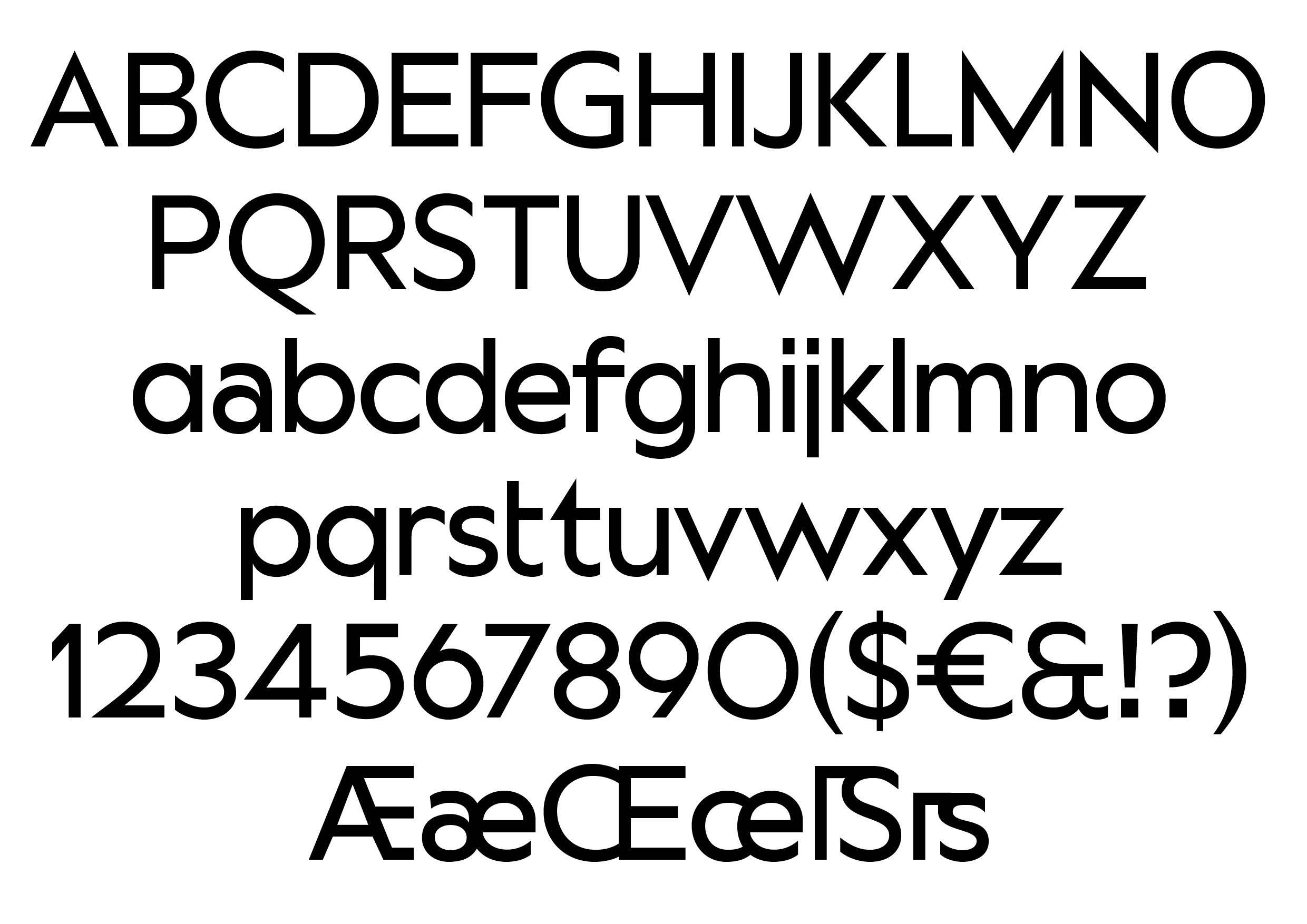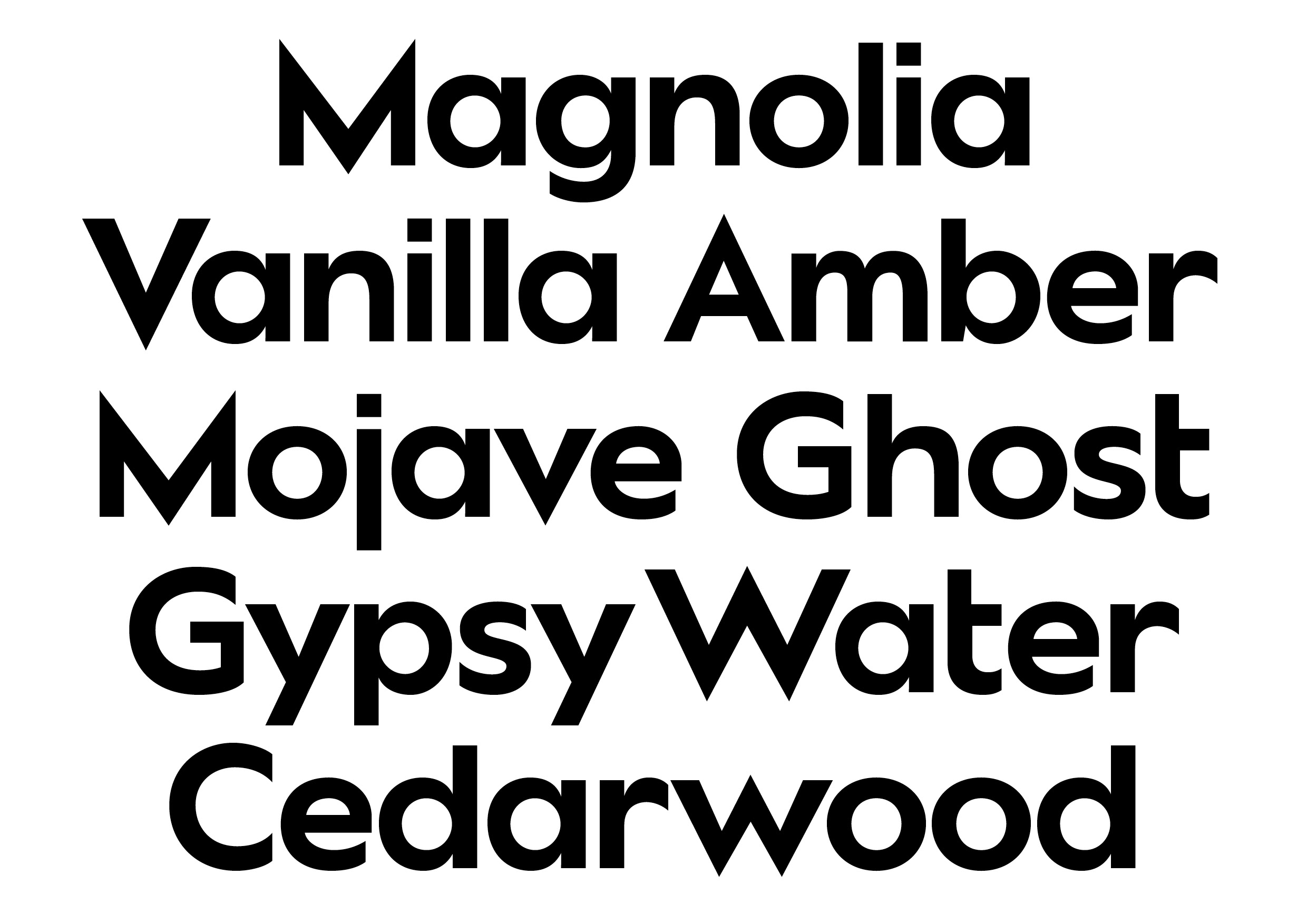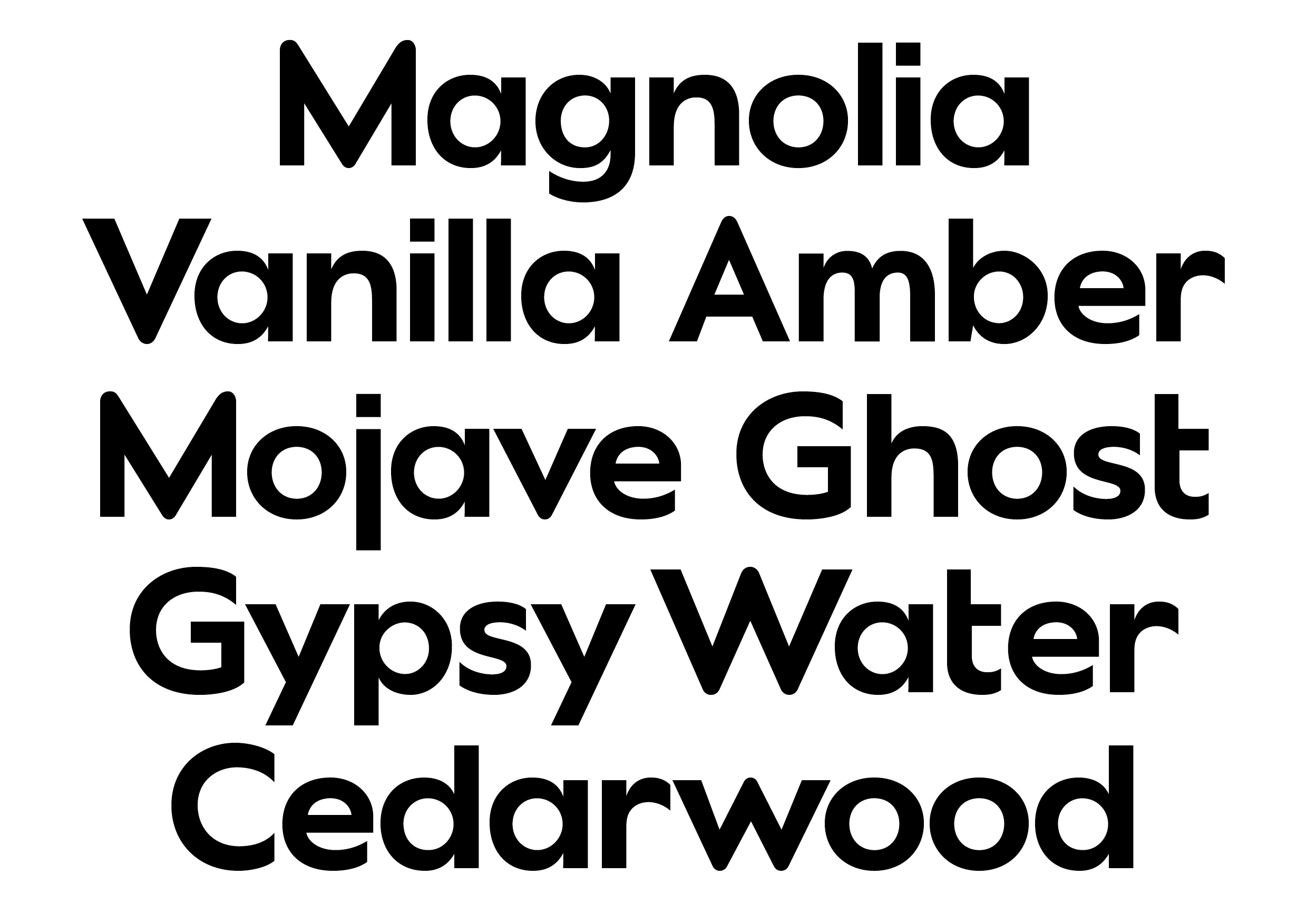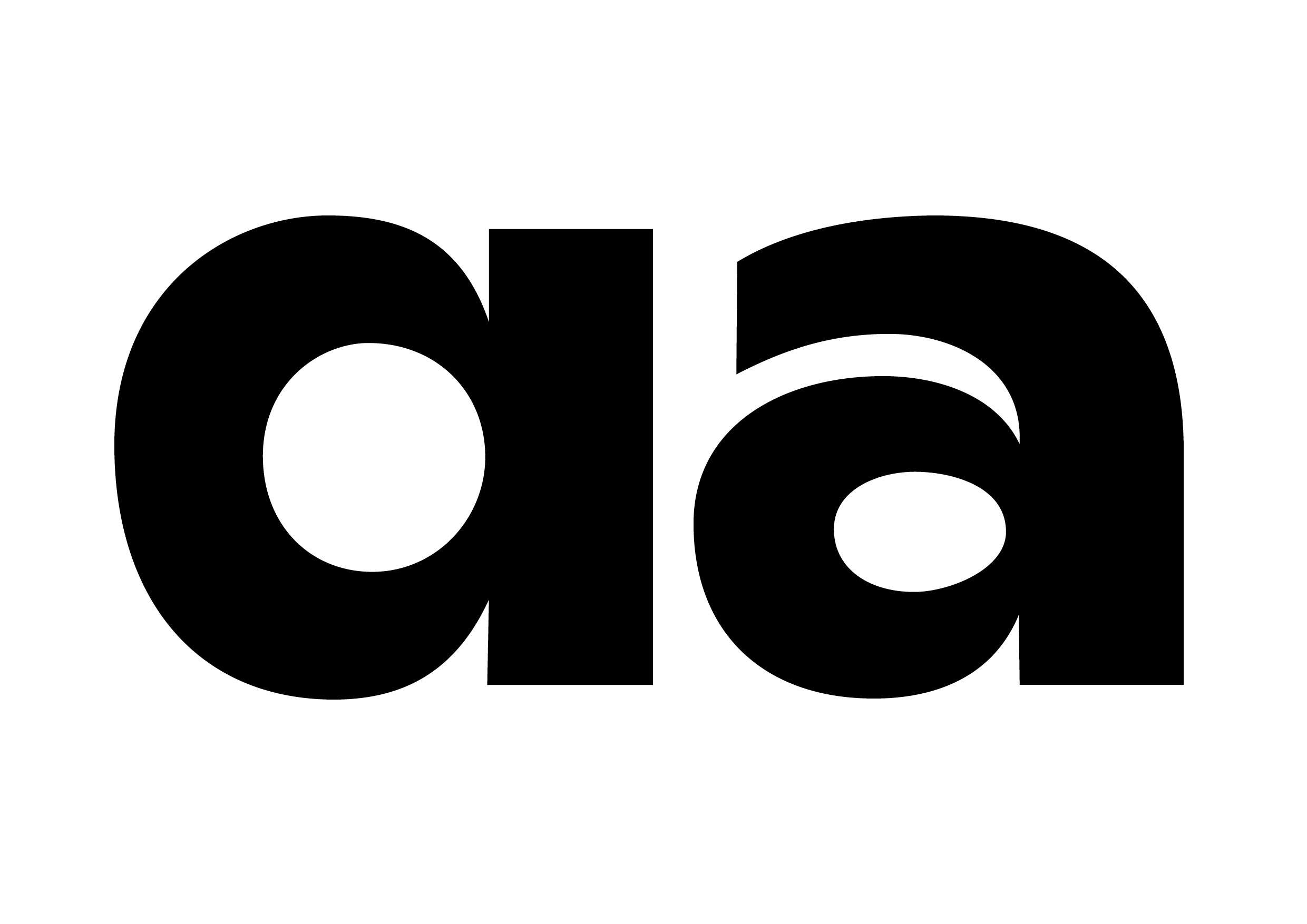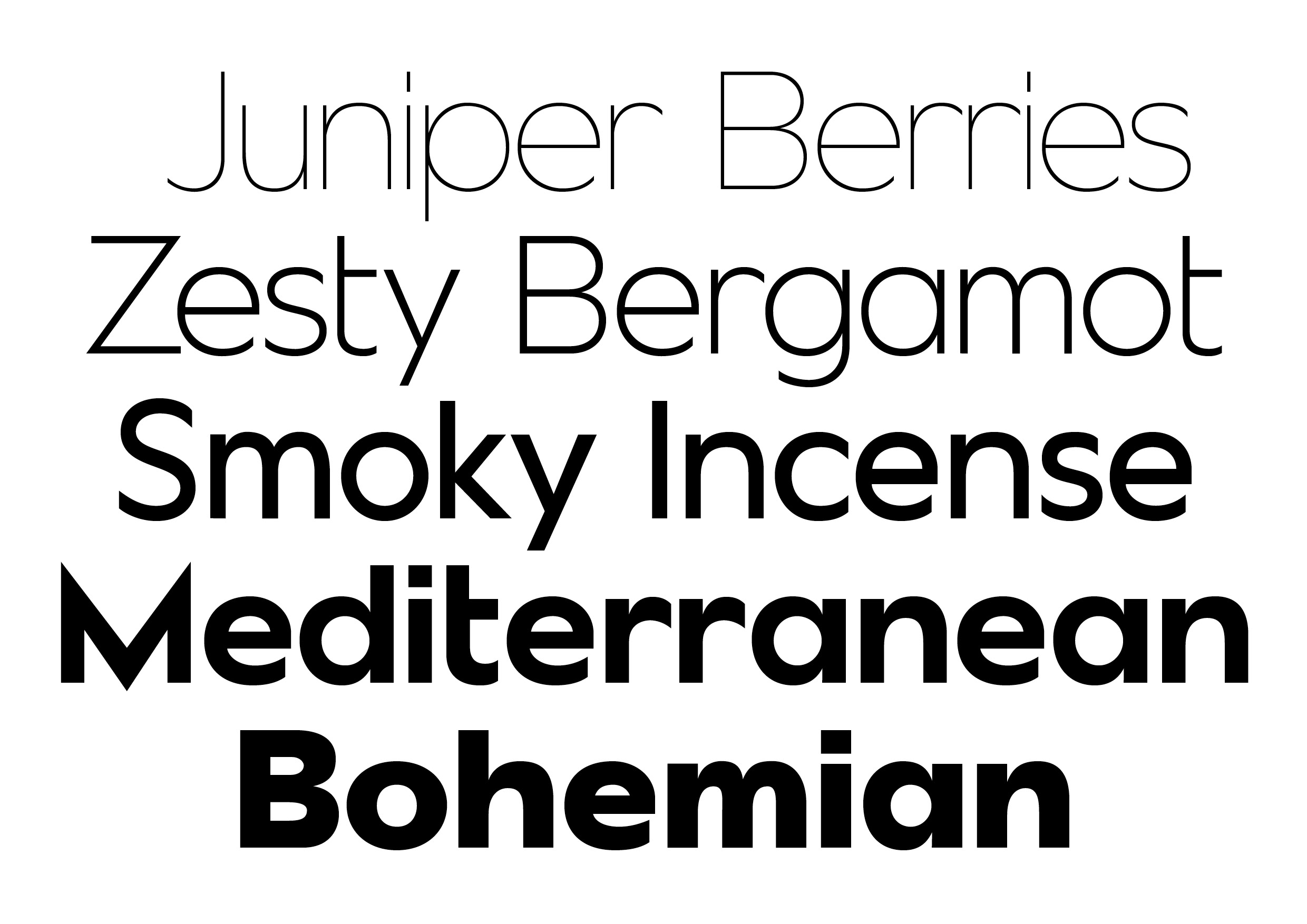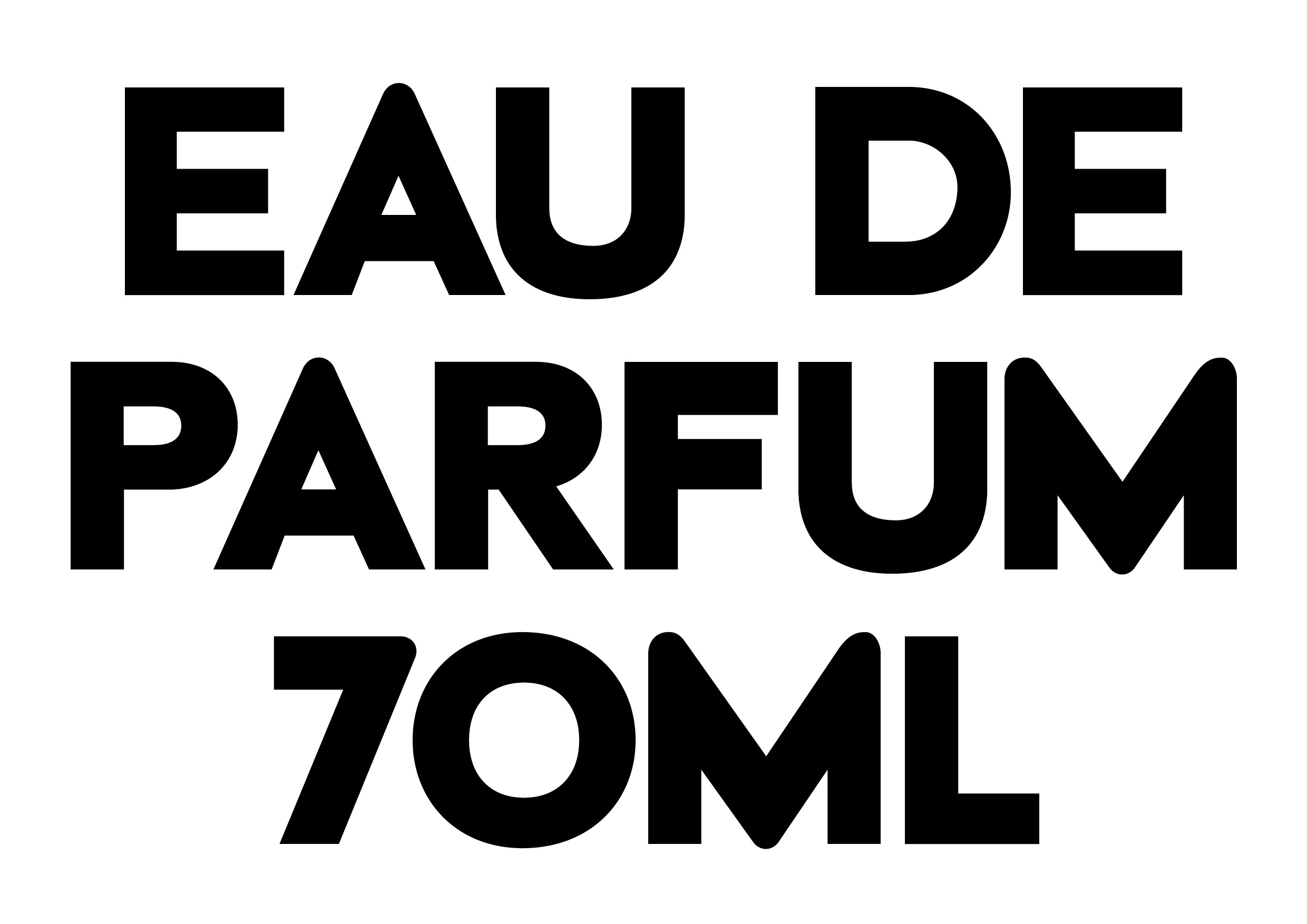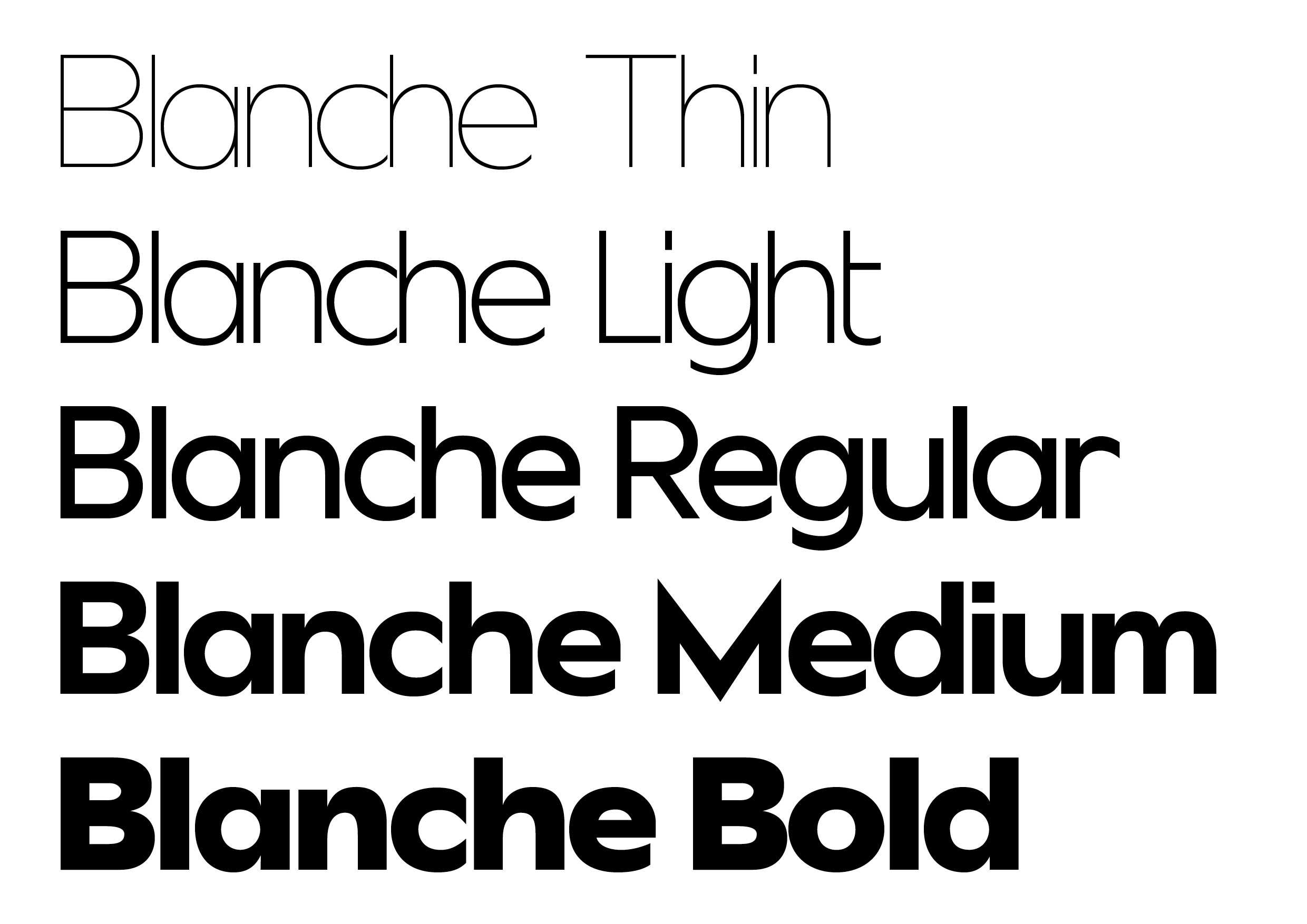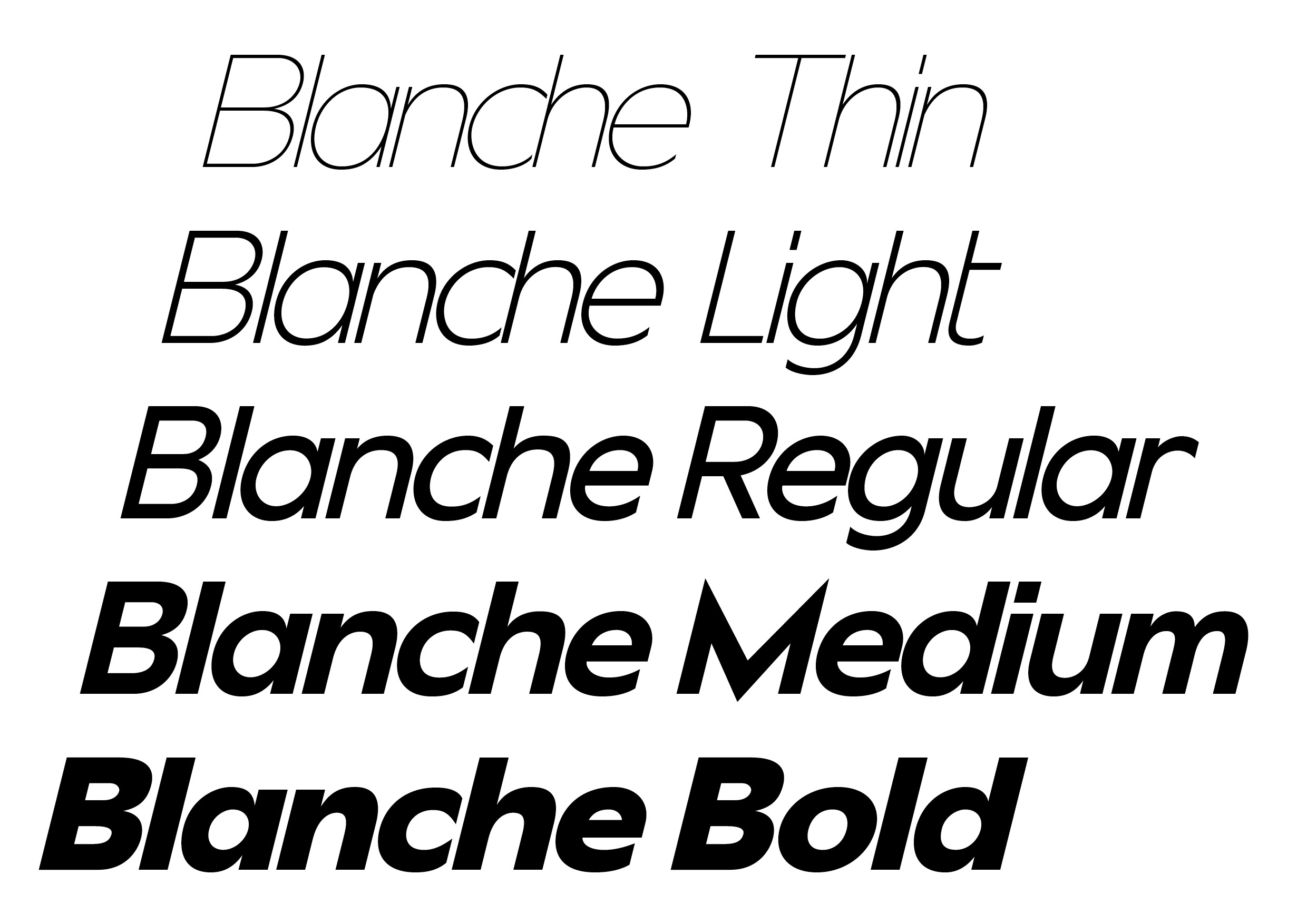
Blanche
The future used to look very different. Early modernism was full of optimism. There was a belief that simple forms and new ideas could make objects better and maybe make life better too. Blanche began with that spirit. It draws from the Bauhaus and from Paul Renner's experiments with geometric typography. The letters start with circles and clean structures but they never become completely mathematical. There is warmth and play inside the system. Blanche isn't interested in recreating the past. It's interested in something more useful from it. The feeling that a few simple shapes can still make something feel completely new.
Blanche Sans specimen